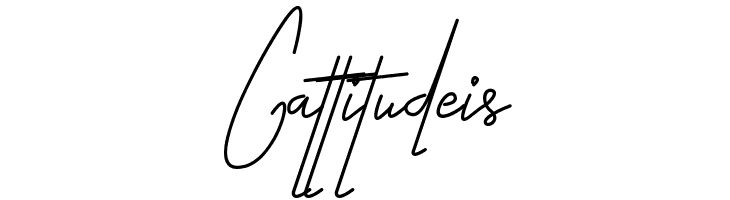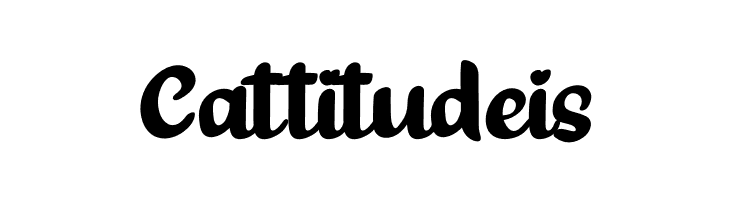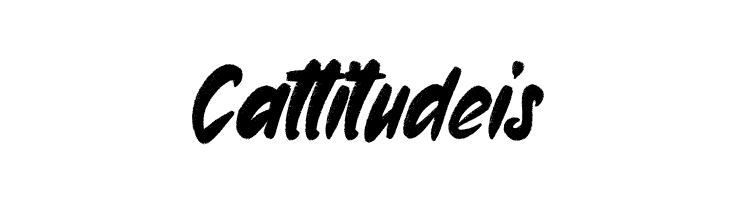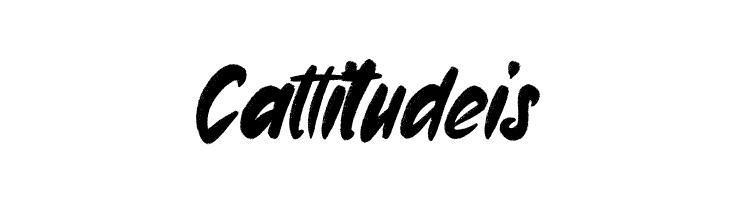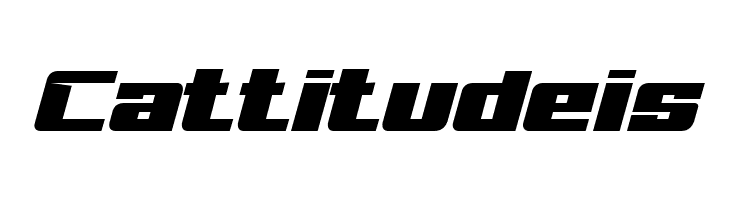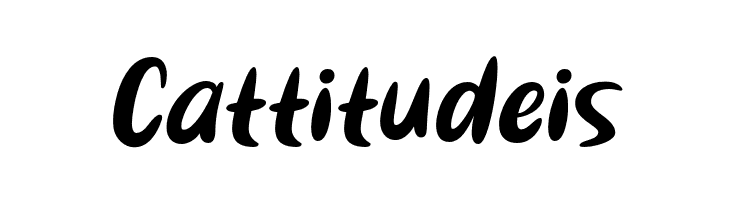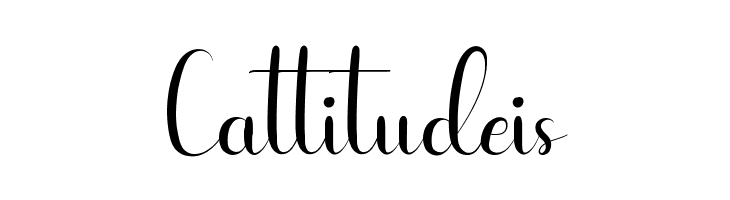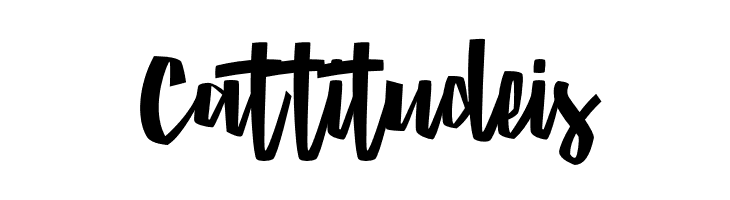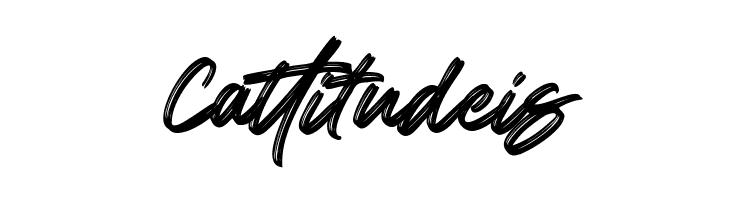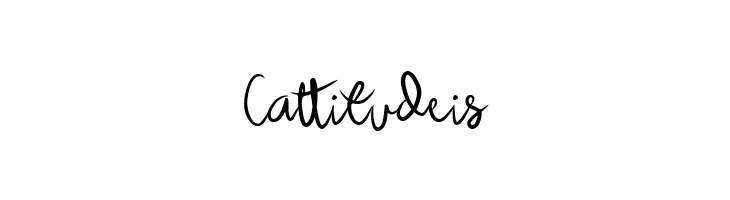
• Bestbrust
A bold, dynamic brush script font with expressive strokes and a lively appearance.
• Bestbrust
A bold, energetic script font with a hand-painted look.
• Bestbrust ligature
A bold, energetic script font with a hand-painted, artistic style.
• Bestbrustligature
A bold, dynamic brush script font with expressive strokes.
• Besteam
A bold, expressive handwritten font with dynamic strokes and cursive connections.
• Bestee Houwer
A bold, edgy font with angular lines and a dynamic presence.
• Bester Better
A bold, playful handwritten font with thick, rounded strokes.
• Bester Keefi Personal Use
A bold, playful script font with rounded strokes and a friendly, handwritten style.
• Bestermind
A dynamic, expressive handwritten font with fluid cursive strokes.
• Bestfriend
A playful, handwritten font with smooth curves and a casual style.
• bestgoals
A playful, cursive-like script font with interconnected letters and moderate stroke thickness.
• Bestie
A lively and expressive handwritten font with fluid, connected letterforms.
• Bestie
A lively and flowing script font with smooth, cursive strokes.
• Besties Matthew Regular
A modern, elegant handwritten font with flowing, elongated characters.
• BestiesRegular
A bold, expressive handwritten font with dynamic and flowing letterforms.
• Bestiest Free Regular
A cursive script font with elegant, flowing strokes and high contrast.
• Bestiest Labs
• Bestina
A bold, dynamic script font with a handwritten feel and rounded edges.
• BESTINCLASS-Regular
A bold, angular font with a futuristic and geometric style.
• Bestiyam
A playful, handwritten font with rounded, smooth letterforms.
• Bestlife
A dynamic handwritten font with elegant, flowing letterforms.
• bestlover